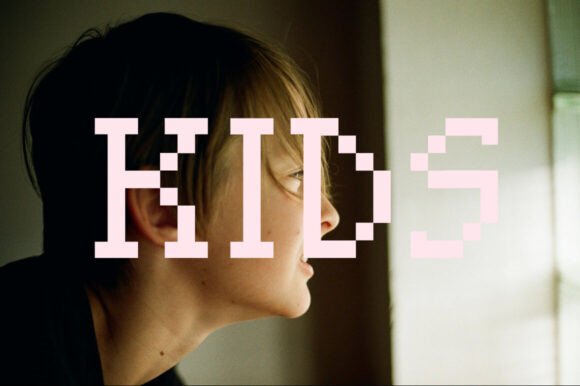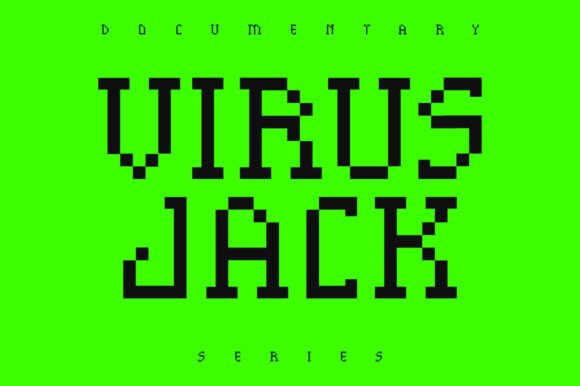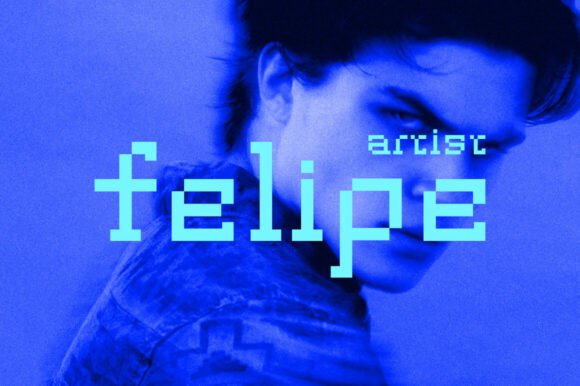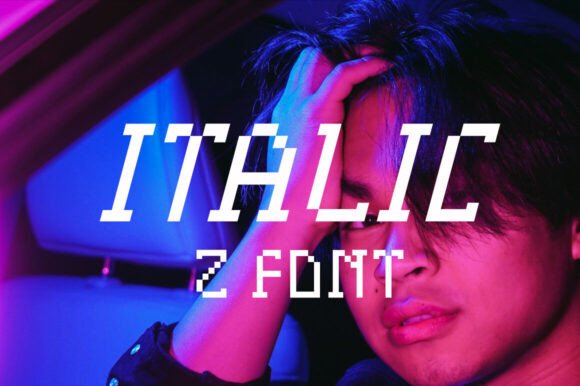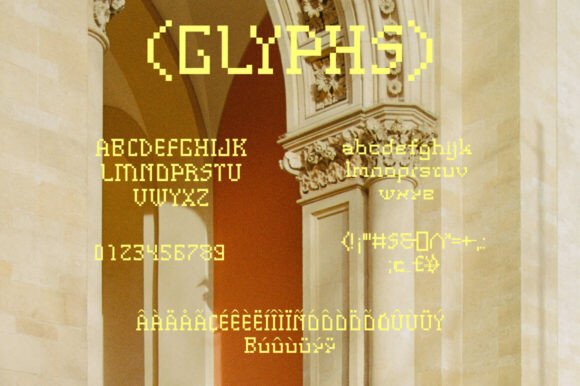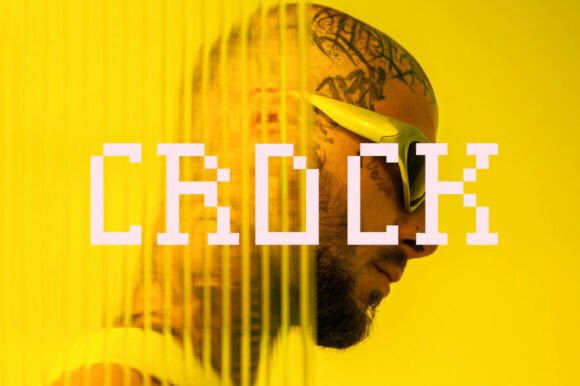
Groutpix Font: A Modern Slab Serif for Attention-Grabbing Designs
In the world of typography, fonts play a crucial role in conveying messages, expressing creativity, and setting the tone for a brand or project. For designers and crafters looking for a modern, attention-grabbing font, Groutpix is an excellent choice. With its clean lines, bold strokes, and geometric proportions, this slab serif font is perfect for projects that demand attention. In this article, we’ll explore the features and benefits of Groutpix, and why it’s ideal for everything from headlines and logos to body copy and branding.
What is Groutpix Font?
Groutpix is a modern slab serif font designed with clean lines, bold strokes, and geometric proportions. Its unique design makes it stand out from traditional serif fonts, giving it a fresh and contemporary look. The font’s bold strokes and geometric shapes create a sense of stability and reliability, making it perfect for projects that require a strong visual presence.
Key Features of Groutpix Font
- Clean Lines: Groutpix features clean lines that give it a crisp and modern look, making it perfect for digital and print designs.
- Bold Strokes: The font’s bold strokes add a sense of confidence and strength to any design, making it ideal for headlines, logos, and titles.
- Geometric Proportions: Groutpix’s geometric proportions create a sense of balance and harmony, making it suitable for body copy and branding.
- Slab Serif: The font’s slab serif design gives it a unique and distinctive look, setting it apart from traditional serif fonts.
Benefits of Using Groutpix Font
Groutpix offers several benefits for designers and crafters, including:
- Attention-Grabbing: The font’s bold strokes and clean lines make it perfect for projects that demand attention, such as headlines, logos, and titles.
- Timeless Design: Groutpix’s geometric proportions and slab serif design give it a timeless look that won’t go out of style quickly.
- Versatility: The font is suitable for a wide range of projects, from digital designs to print materials, and can be used for body copy, headlines, logos, and branding.
- Easy to Read: Groutpix’s clean lines and geometric proportions make it easy to read, even at small font sizes.
Use Cases for Groutpix Font
Groutpix is a versatile font that can be used for a wide range of projects, including:
- Headlines and Titles: The font’s bold strokes and clean lines make it perfect for headlines and titles that demand attention.
- Logos and Branding: Groutpix’s unique design and geometric proportions make it ideal for logos and branding projects that require a strong visual presence.
- Body Copy: The font’s clean lines and easy-to-read design make it suitable for body copy, even at small font sizes.
- Digital Designs: Groutpix is perfect for digital designs, including website headers, social media graphics, and email marketing campaigns.
- Print Materials: The font is also suitable for print materials, such as brochures, flyers, and business cards.
In conclusion, Groutpix is a modern slab serif font that offers a unique combination of clean lines, bold strokes, and geometric proportions. Its attention-grabbing design and timeless look make it perfect for projects that demand attention, from headlines and logos to body copy and branding. With its versatility and ease of use, Groutpix is an excellent choice for designers and crafters looking for a font that can help them create stunning designs.
Overall, Groutpix is a fantastic font that can elevate your designs and help you create stunning visual content. Its unique design, versatility, and ease of use make it an excellent addition to any designer’s or crafter’s toolkit.